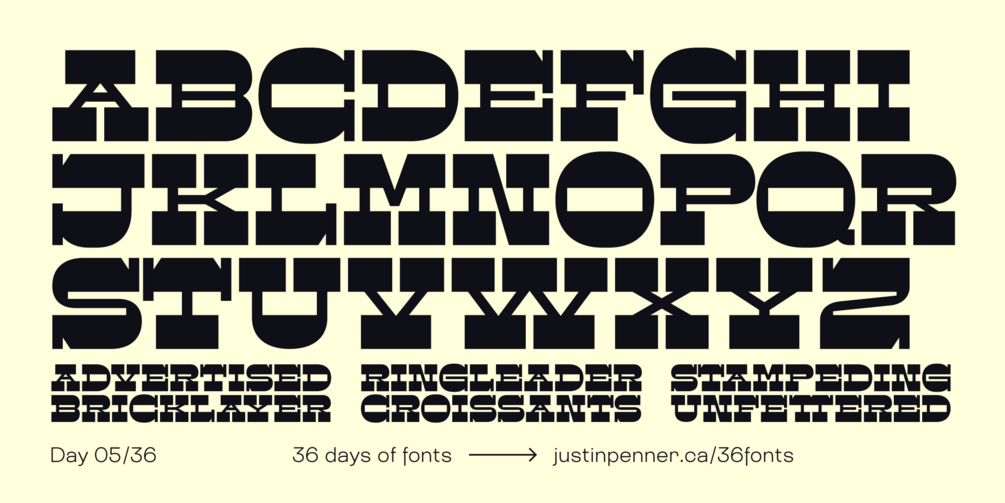
36 Days of Fonts: Day 05
Voleur
I love typefaces with reversed contrast. The idea with this one was focused on creating a wide band that runs across the top and bottom of every letter.